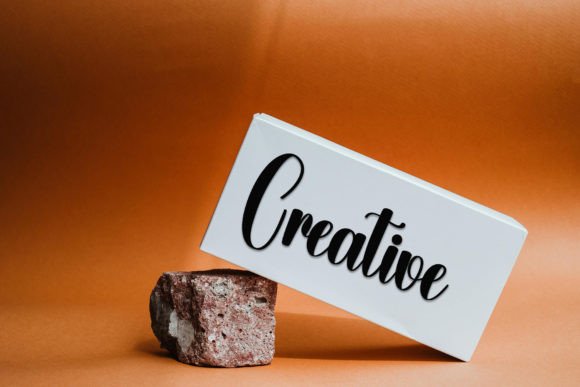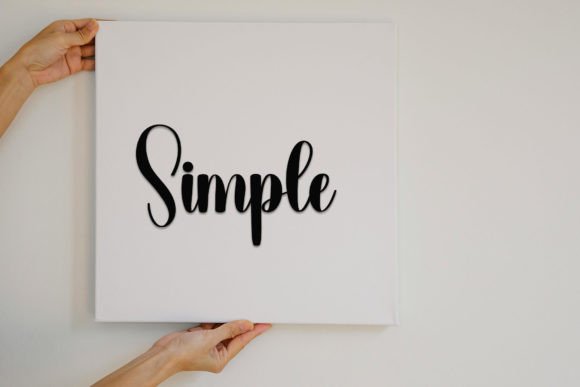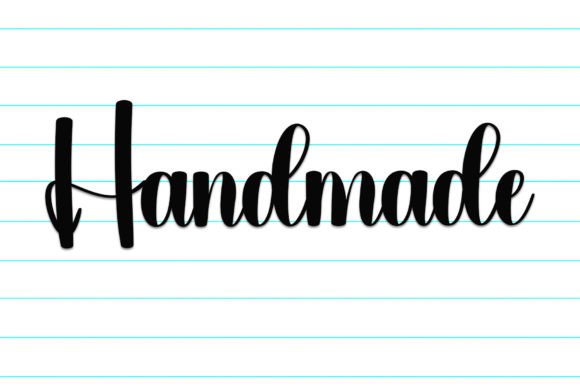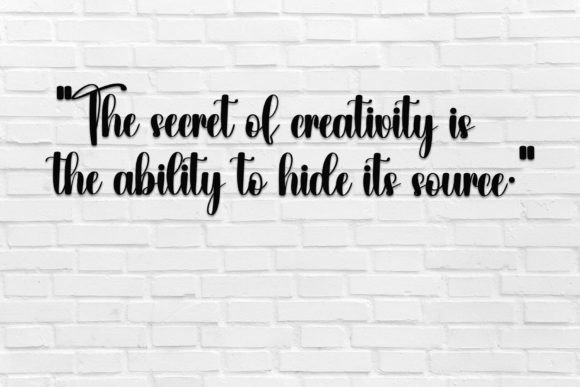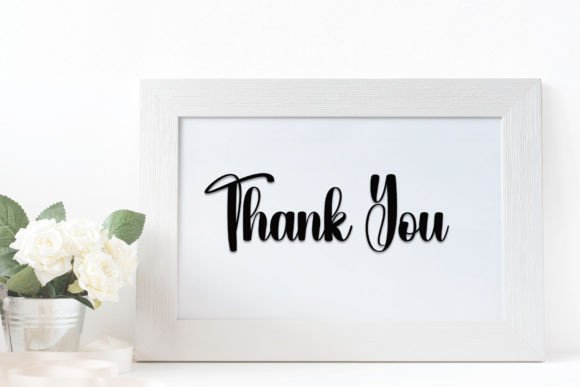
Baking Font: Elevate Your Designs with a Touch of Elegance
In the world of design, typography plays a crucial role in conveying the tone and aesthetic of a project. For crafters, designers, and DIY enthusiasts, finding the perfect font can make all the difference. If you’re looking for a font that exudes elegance, sophistication, and a touch of classic charm, look no further than Baking Font. In this article, we’ll dive into the world of Baking Font, exploring its features, benefits, and uses, and why it’s a must-have for any designer or crafter.
What is Baking Font?
Baking Font is a trendy handwritten font that embodies a contemporary atmosphere while maintaining impeccable form. Inspired by timeless classic calligraphy, Baking Font brings a sense of nostalgia and refinement to any design project. Its elegant strokes, precise lettering, and flowing connections make it perfect for adding a touch of sophistication to your designs.
Key Features of Baking Font
- Handwritten style: Baking Font boasts a beautiful, handwritten style that adds a personal touch to your designs.
- Contemporary atmosphere: With its modern take on classic calligraphy, Baking Font is perfect for designers looking for a font that’s both trendy and timeless.
- Impeccable form: The font’s precise lettering and elegant strokes ensure that your designs look polished and refined.
- Elegant and classy: Baking Font is designed to add a touch of elegance and class to any design project, making it perfect for high-end branding, packaging, and more.
Uses for Baking Font
Baking Font is versatile and can be used in a variety of design projects, including:
- Branding and logos: Add a touch of sophistication to your brand’s identity with Baking Font.
- Packaging design: Elevate your product packaging with a font that’s both elegant and eye-catching.
- Stationery and invitations: Create beautiful, custom stationery and invitations that exude elegance and refinement.
- Digital and print media: Use Baking Font in your digital and print designs, such as brochures, flyers, and social media graphics.
Why Choose Baking Font?
With so many fonts available, why choose Baking Font? Here are just a few reasons:
- Unique and distinctive: Baking Font stands out from the crowd with its unique, handwritten style.
- High-quality design: The font is meticulously crafted to ensure that your designs look professional and polished.
- Versatile: The font can be used in a variety of design projects, making it a valuable addition to your font library.
Tips for Using Baking Font
To get the most out of Baking Font, here are a few tips:
- Pair with complementary fonts: Combine Baking Font with complementary fonts to create a unique and visually appealing design.
- Experiment with colors and textures: Add depth and interest to your designs by experimenting with different colors and textures.
- Use in combination with images: Pair Baking Font with high-quality images to create stunning visual effects.
Baking Font is a must-have for designers and crafters looking to add a touch of elegance and sophistication to their designs. With its trendy handwritten style, impeccable form, and versatile uses, Baking Font is the perfect font for any design project. Whether you’re creating branding materials, packaging, or stationery, Baking Font is sure to elevate your designs to the next level.